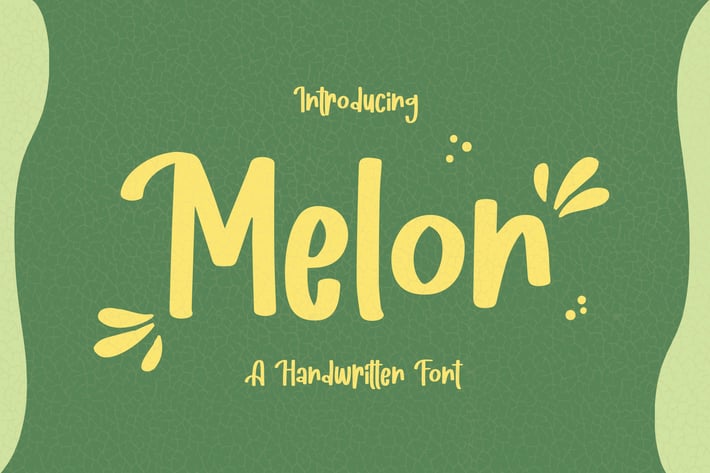
Melon – Fancy Handwritten Font
Melon is a fancy font inspired by melon fruit. This font is perfect for various purposes such as quotes, designs, flyers, youtube channels, Cricut, labels, logos, etc.